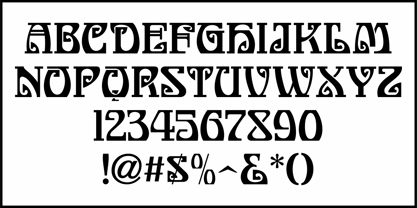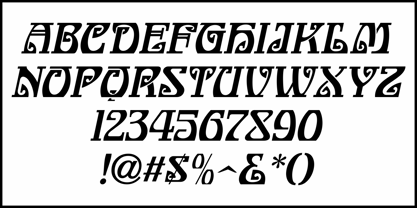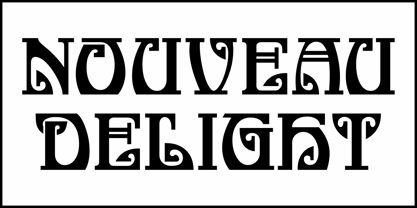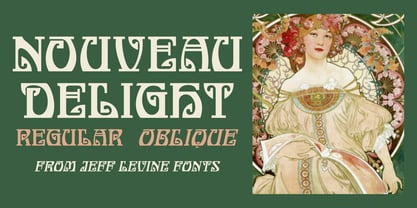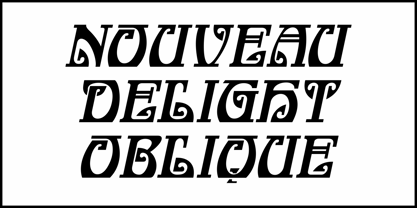
Nouveau Delight JNL
by Jeff Levine
An Art Nouveau alphabet presented in the 1923 publication "Art Alphabets & Lettering" by J.M. Bergling served as the model for Nouveau Delight JNL, which is available in both regular and oblique versions. Reminiscent of works by Alphonse Mucha and others, this design is a delightful bridge to the typography of the past, and for more unique type fonts visit Jeff Levine Fonts.